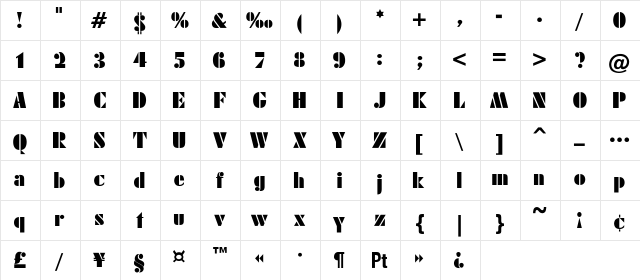
Futuri-Black-No Regular
Design Context for Futuri-Black-No Typeface
Futuri-Black-No channels digital-age aesthetics through its sharp, structured letterforms — ideal for brands that want to signal innovation.
Pro Tip: Try Futuri-Black-No with generous letter-spacing in UI labels and navigation — the geometric forms benefit from room to breathe.